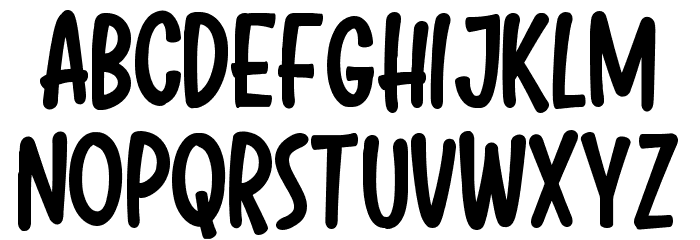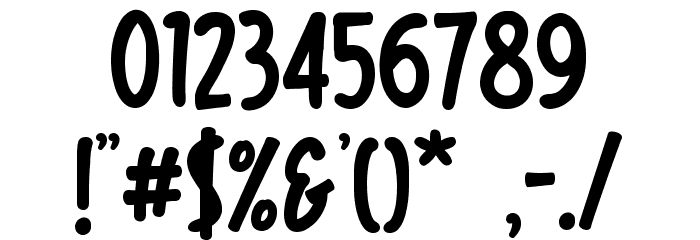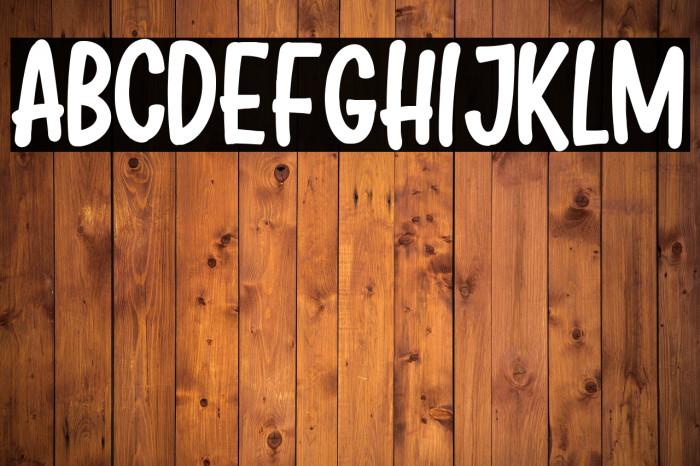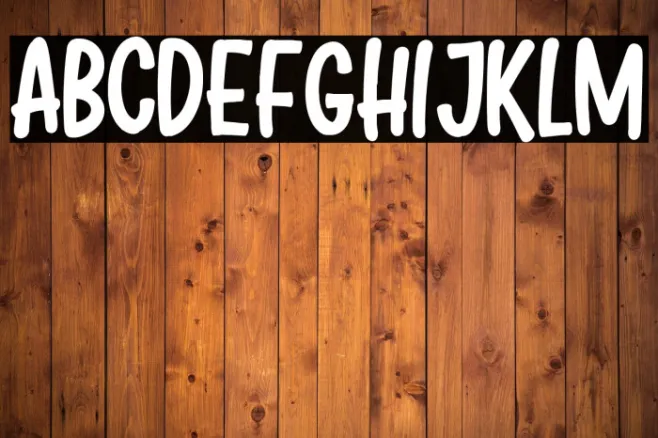
Cooper Jackson Font
This font features a playful and bold handwritten style, characterized by its rounded and slightly irregular letterforms. The strokes are thick and consistent, giving it a strong presence on the page. The characters have a casual, friendly appearance, making them suitable for informal and creative projects. The font includes both uppercase and lowercase letters, numerals, and a variety of special characters, ensuring versatility in design applications. Its unique style captures attention and adds a personal touch to any text.
A bold, playful handwritten font with rounded, irregular letterforms.
- Proposed Projects: Ideal for children's books, greeting cards, posters, and playful branding.
- Overall Style: Playful